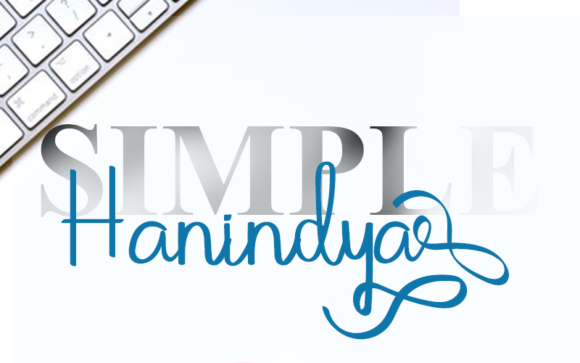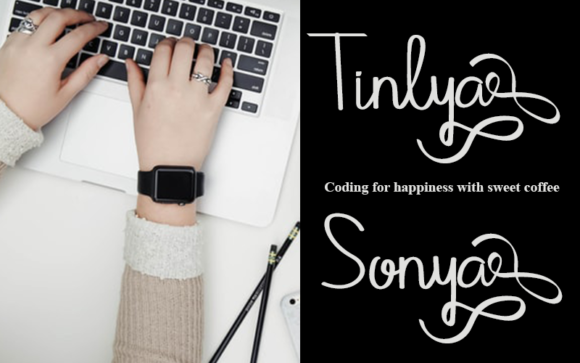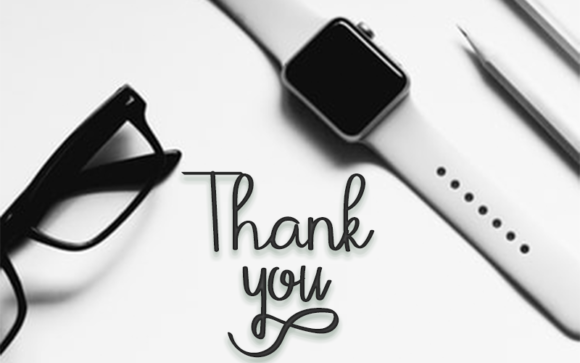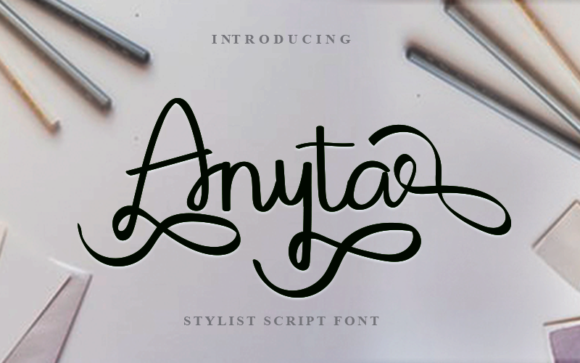
The Anyta Font: A Handwritten Gem for Creative Projects
I’ll never forget the moment I stumbled upon the Anyta font while working on a wedding invitation project for a dear friend. I had been searching for the perfect handwritten font for hours, trying out various options, but none seemed to capture the elegance and playfulness I was looking for. That was until I saw Anyta – its beautiful, flowing curves and authentic feel instantly won me over. In this article, I’ll share my love for this unique font, its features, and provide a practical guide on how to use it in various design platforms.
An Honest Review of Anyta Font
What I Love About Anyta ✨
- 💕 Its authentic, handwritten feel makes it perfect for creating gorgeous wedding invitations, beautiful stationery art, eye-catching social media posts, and cute greeting cards.
- ✅ The font is highly legible, even in smaller sizes, making it versatile for various design projects.
- 🎨 Anyta’s unique character set and stylistic alternates offer endless creative possibilities.
- ⚠️ As with many handwritten fonts, Anyta may not be the best choice for body text or lengthy content, as it can be a bit challenging to read in large blocks.
- ⚠️ Some users may find the font’s uniqueness a bit too distinctive for certain design projects, requiring careful consideration of the overall aesthetic.
The Story Behind Anyta Font
Anyta was designed with love and care by a talented type designer who aimed to create a unique, handwritten font that captures the essence of authentic, hand-written correspondence. The designer’s inspiration came from traditional handwritten scripts, combined with a modern twist to make it suitable for a wide range of creative projects.
Q: What type of projects is Anyta font best suited for?
Anyta font is perfect for designs that require a personal touch, such as wedding invitations, stationery art, social media posts, and greeting cards.
Q: Is Anyta font suitable for body text?
While Anyta font is highly legible, it’s not recommended for body text or lengthy content, as it may be challenging to read in large blocks.